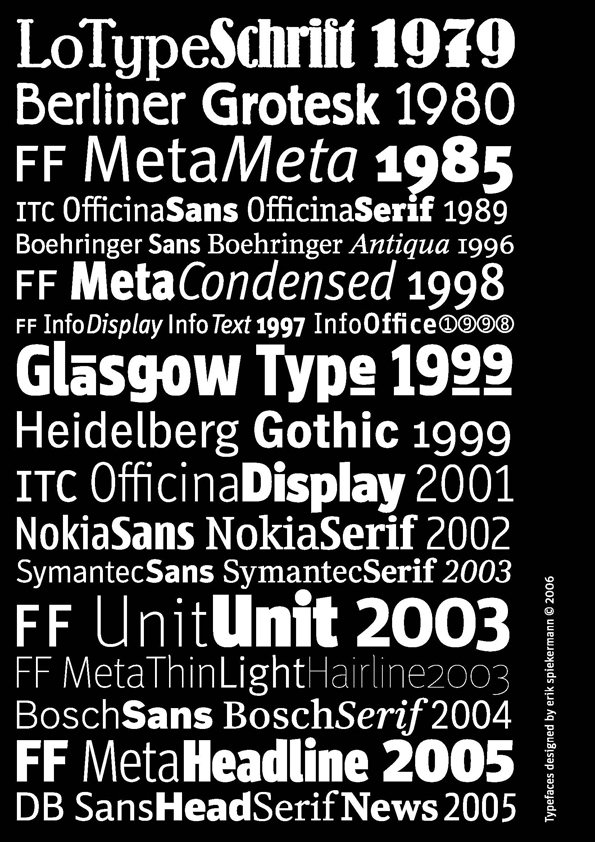
Incredible Erik Spiekermann Fonts 2023
Incredible Erik Spiekermann Fonts 2023. He is author, information architect, type designer (ff meta®, itc officina®, ff info®, ff unit®, lotype®, berliner grotesk® and many corporate typefaces) and author of books and articles on type and typography.he was founder (1979) of metadesign, germany’s largest. He created the meta and officina typefaces and now has.
Web erik spiekermann is a legendary german type designer and information architect. Complete family of 12 fonts: Web it seemed perfectly natural, then, for adobe to call on spiekermann to help breath life into some unfinished fonts from legendary bauhaus design masters, lost for.
Besides He Has Published Numerous Books And Articles On The Subject Of Typography And Other.
Web A Variable Incarnation Of Ff Meta, Produced By Marianna Paszkowska.